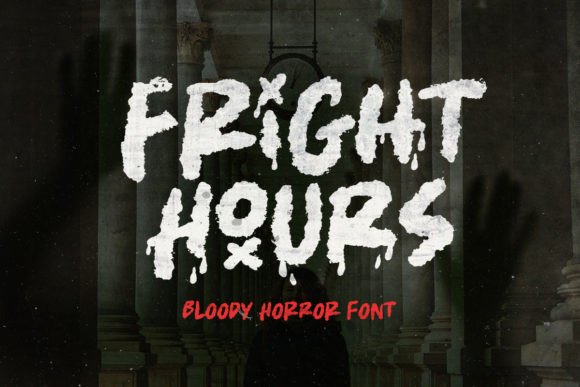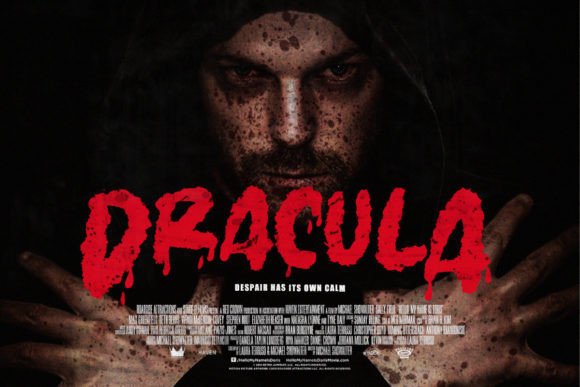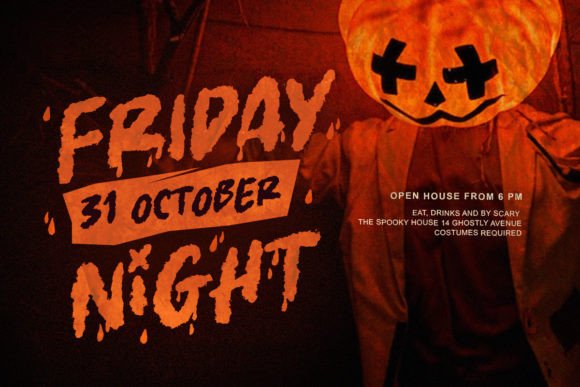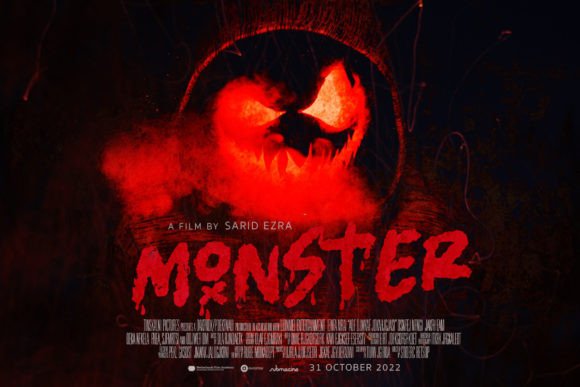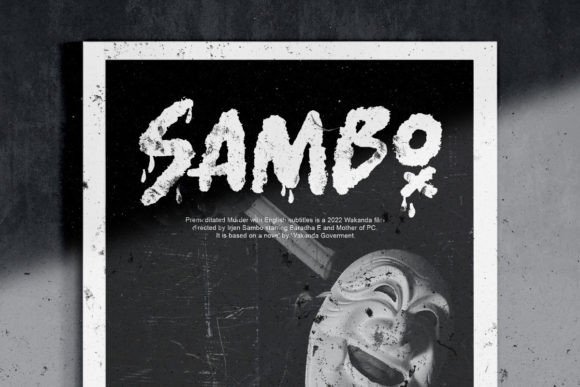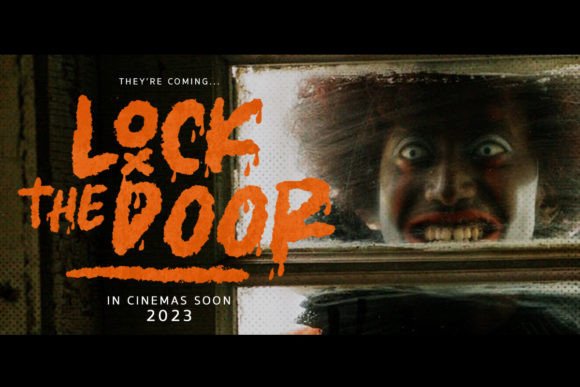
Fright Hours Font: Unleash the Horror with this Freaky Handwritten Font
Are you a designer or crafter looking for a font that can add a touch of horror and freakiness to your projects? Look no further than the Fright Hours Font! This rough handwritten font is perfect for creating posters, movies, and crafts that require a creepy and stunning vibe. In this article, we’ll dive into the features and benefits of Fright Hours Font and explore how you can use it to take your designs to the next level.
What is Fright Hours Font?
Fright Hours Font is a unique and terrifying font that is designed to give your projects a horror and freaky feel. This font comes in two versions: regular and bloody. The regular version has a rough and handwritten look, while the bloody version adds an extra layer of gore and realism. By combining both versions, you can create stunning and creepy designs that will leave your audience speechless.
Features of Fright Hours Font
- Regular and Bloody Versions: Fright Hours Font comes in two versions that can be combined to create unique and terrifying designs.
- Rough Handwritten Look: The font has a rough and handwritten look that adds a touch of horror and freakiness to your projects.
- Unique Lowercase: The font features a unique lowercase design that will make your posters and crafts stand out.
- Suitable for Posters and Movies: Fright Hours Font is perfect for creating posters and movies, especially thriller and horror movies.
- Ideal for Halloween: This font is perfect for Halloween events and projects, adding a spooky and eerie atmosphere to your designs.
Benefits of Using Fright Hours Font
Using Fright Hours Font can bring numerous benefits to your designs and crafts. Here are some of the advantages of using this font:
- Adds Horror and Freaky Vibe: Fright Hours Font can add a touch of horror and freakiness to your projects, making them stand out from the crowd.
- Increases Engagement: The creepy and stunning designs created with Fright Hours Font can increase engagement and leave a lasting impression on your audience.
- Perfect for Thriller and Horror Movies: This font is ideal for thriller and horror movies, adding an extra layer of realism and horror to your posters and promotional materials.
- Choose the Version: Choose the regular or bloody version of the font, depending on your design requirements.
- Combine Versions: Experiment with combining both versions to create unique and terrifying designs.
Fright Hours Font is a unique and terrifying font that can add a touch of horror and freakiness to your designs and crafts. With its regular and bloody versions, rough handwritten look, and unique lowercase design, this font is perfect for creating posters, movies, and crafts that require a creepy and stunning vibe. Whether you’re a designer or crafter, Fright Hours Font is an excellent addition to your font collection. So, download Fright Hours Font today and unleash the horror in your designs!